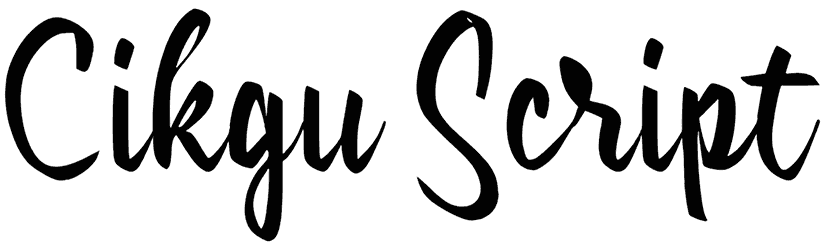
c Cikgu Script Font
If you are in the market for a font that sets the mood and evokes emotions, we strongly recommend c Cikgu Script. This handwritten font works with the viewer’s subconscious and can affect the reader’s attitude toward your content.
By using this script font, you can convey a wide range of human emotions. Just combine it with a suitable background in posters, letters, and wedding cards.